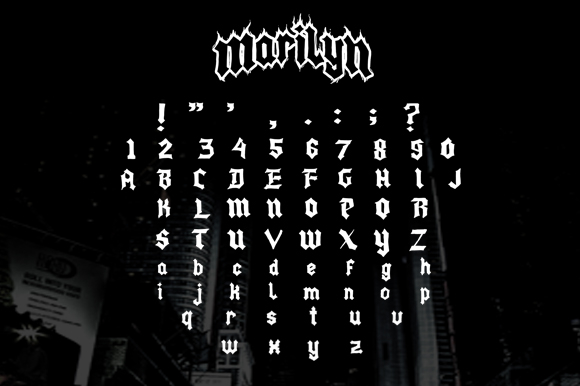
About Marilyn Font
“Marilyn” is a new, casual script font. Whether you need a modern vision or a vintage feeling, Marilyn has the look for you. Marilyn is great for any kind of usage from advertising materials to packaging or posters. Marilyn is offering you a handwritten font with textured lines and multiple unique styles.